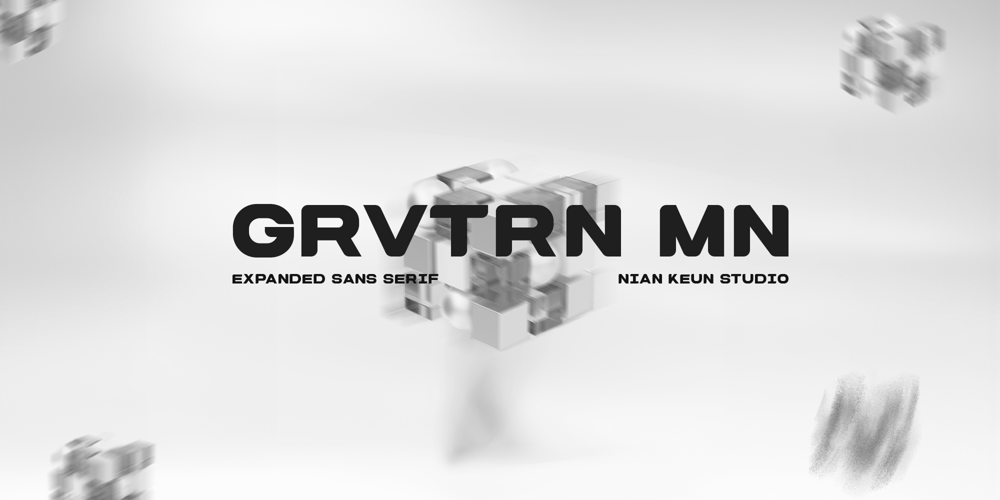
Grvtrn mn Font Family was designed by Mugi Raharjo and published by Nian Keun Studio. Grvtrn mn contains 1 styles and family package options. GRVTRN MN a contemporary extended sans serif font that embodies simplicity with a modern edge. Designed to reflect the popular design trends of 2024, GRVTRN MN features a clean and straightforward style, characterized by its large, wide, and thick letterforms. This font is all about making a bold statement while maintaining a minimalist appeal.GRVTRN MN is perfect for projects that require a strong, modern look with a touch of sophistication. Its extended and expanded form creates a sense of openness and clarity, making it ideal for branding, advertising, headlines, digital content, and more. The bold weight and wide proportions of GRVTRN MN ensure that it stands out, whether in print or on screen.The simplicity of GRVTRN MN makes it a versatile choice, providing a powerful visual impact without overwhelming the viewer. Its modern aesthetic and strong presence are tailored to meet the needs of today’s designers who are looking for fonts that are both functional and stylish.